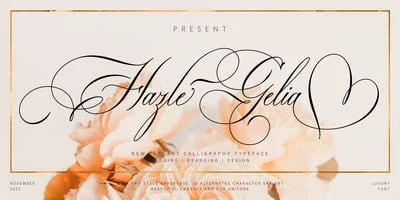
Hazle Gelia Font
Hazle Gelia Font is perfect for romantic wedding invitations, elegant floral boutiques, feminine lifestyle magazines, delicate jewelry branding, sophisticated beauty salons, graceful dance studios, vintage garden parties, and refined artistic expressions. This enchanting typeface brings feminine grace and botanical elegance to any design project celebrating natural beauty and the refined sophistication of feminine artistry.
What makes Hazle Gelia Font exciting is its exquisite capture of feminine elegance combined with natural grace that perfectly embodies the delicate beauty and sophisticated charm of botanical femininity and refined artistic expression. The graceful letterforms feature flowing curves and elegant proportions that create an unmistakably sophisticated appearance. Each character blooms with feminine beauty, making it ideal for brands that celebrate women's elegance, natural sophistication, and the timeless beauty of feminine artistic expression.
The Hazle Gelia Font family typically includes regular and italic weights with complete uppercase and lowercase letters, numbers, punctuation marks, and feminine symbols. Many versions feature additional elegant decorative elements, floral motifs, and sophisticated symbols that enhance the feminine aesthetic and provide creative flexibility for beauty and lifestyle design applications.
Whether you're developing feminine luxury brands or creating elegant romantic materials, Hazle Gelia Font offers unmatched feminine sophistication and graceful elegance. This enchanting typography choice transforms ordinary text into beautiful expressions that resonate with audiences appreciating feminine artistry and sophisticated beauty. The font's graceful construction ensures exceptional appeal across elegant applications while maintaining its distinctive feminine character that makes every design project feel like a garden where beauty and sophistication bloom in perfect harmony with natural grace and timeless feminine elegance.